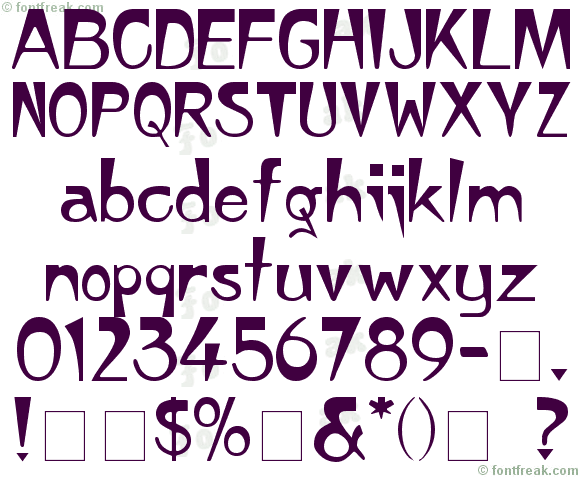
Japan
About Japan
The Japan font, created by Allen R. Walden, is a striking display font that exudes a sense of modernity and cultural elegance. This font falls into the category of decorative typefaces, characterized by its unique, artistic flair that draws inspiration from Japanese aesthetics. The strokes are bold yet fluid, with a balanced contrast that enhances readability while maintaining an eye-catching style. The spacing between characters is thoughtfully designed, allowing for clarity and impact, making it suitable for various creative applications.
One of the standout features of the Japan font is its versatility. It works beautifully for wedding invitations, where its artistic form can add a touch of elegance. Additionally, it shines in movie posters, where its striking appearance can capture attention and convey themes effectively. Restaurant menus benefit from its unique character, providing a memorable dining experience, while branding materials for small businesses can leverage this font to create a distinctive identity that resonates with customers.
What sets the Japan font apart is its ability to blend cultural influence with contemporary design, making it a perfect choice for projects that seek to evoke emotion and connection. With the Japan font free download available, users can easily access this unique typeface and elevate their designs, ensuring that their work stands out in a crowded visual landscape.